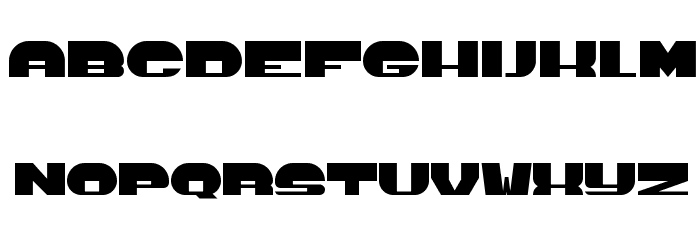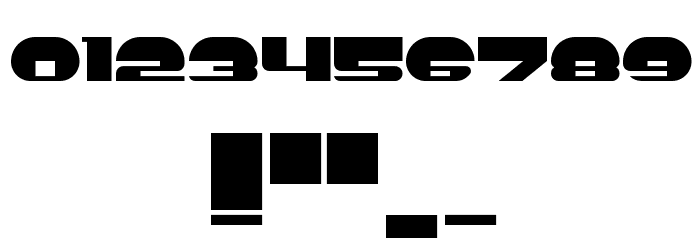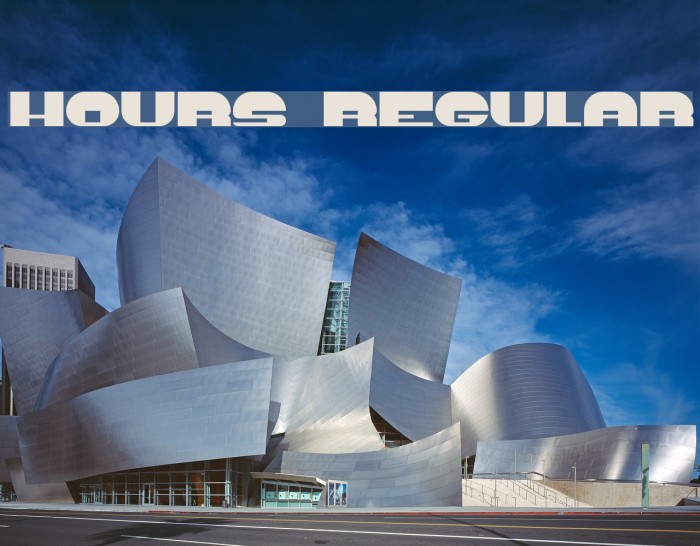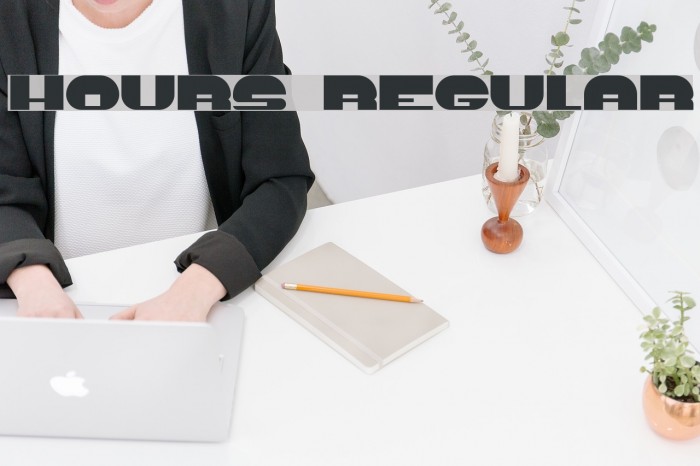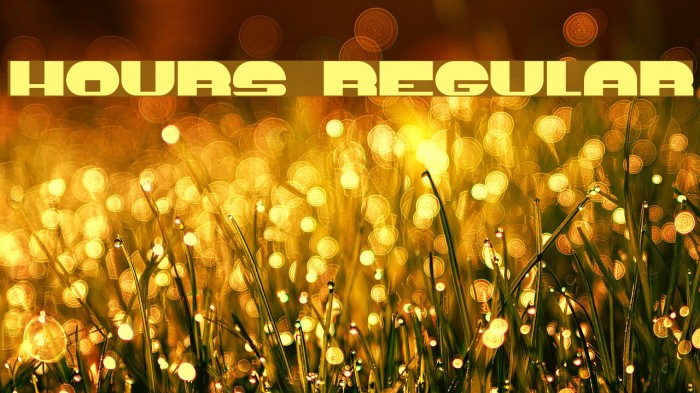
Hours Regular Font
This font features a bold and impactful design with a futuristic and geometric aesthetic. The characters are wide and blocky, with a strong presence that makes them stand out. The uppercase letters have a consistent height and width, creating a uniform appearance. The numbers and special characters follow the same bold style, ensuring cohesion across all elements. The font's design is ideal for projects that require a modern and assertive look, such as technology-related branding or sci-fi themed designs.
A bold, futuristic font with a geometric and impactful style.
- Proposed Projects: Ideal for technology branding, sci-fi themes, posters, and headlines.
- Width: Expanded